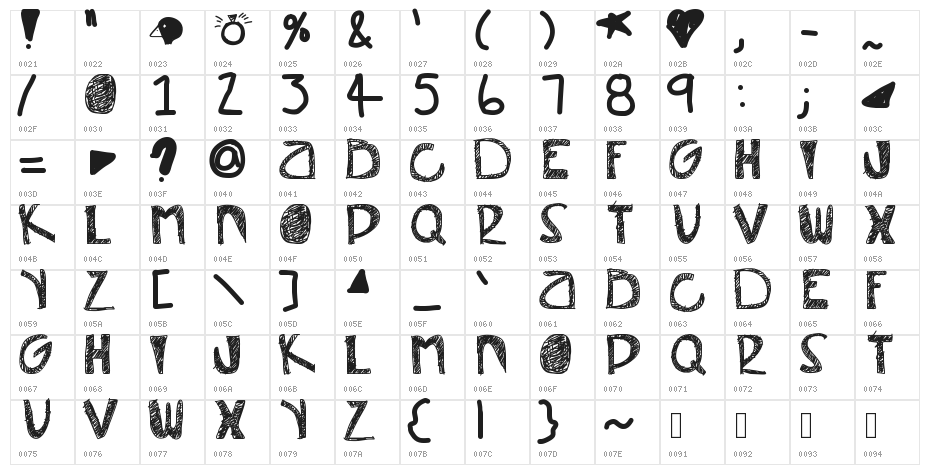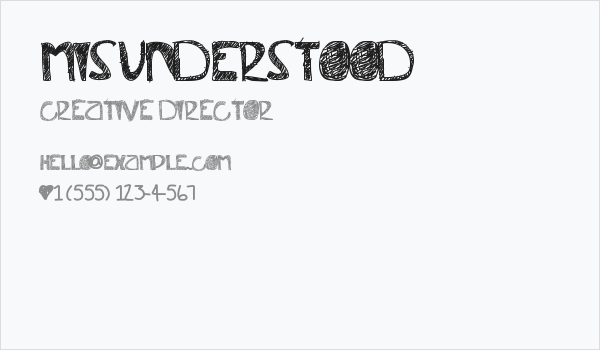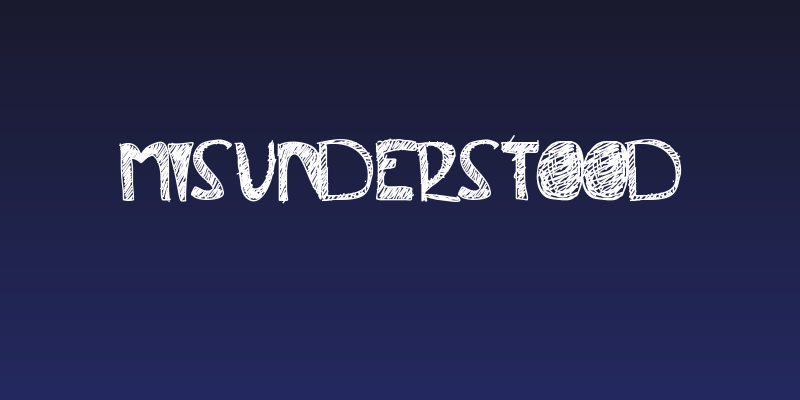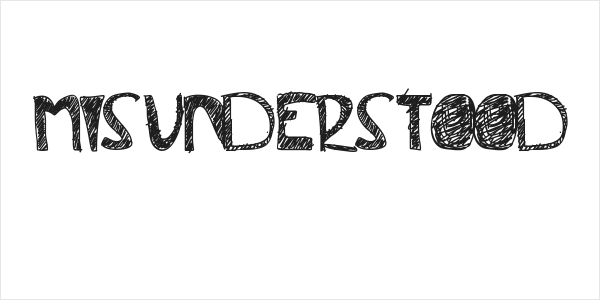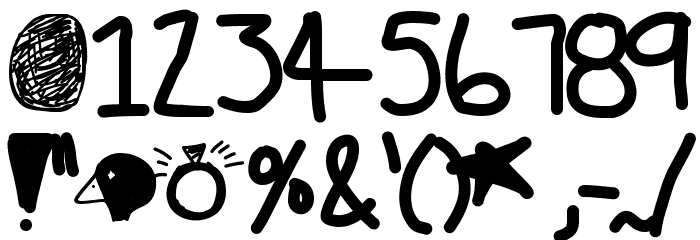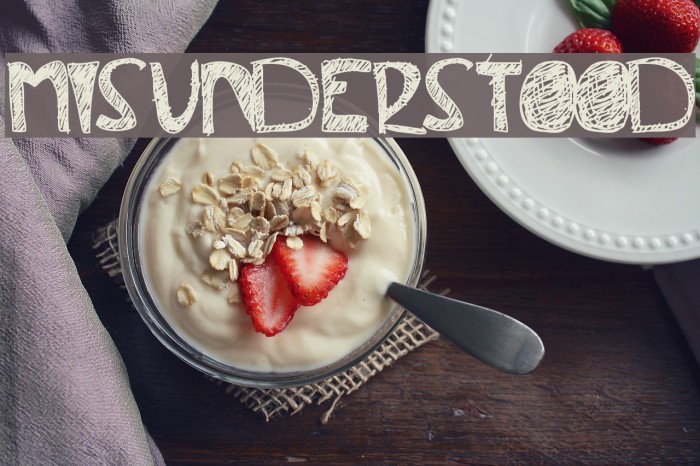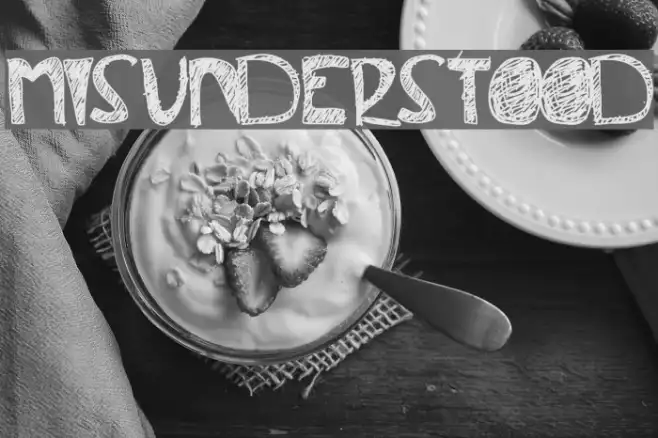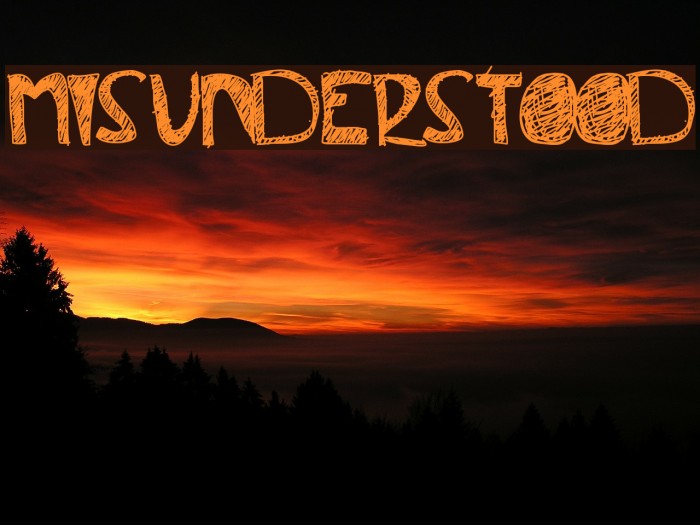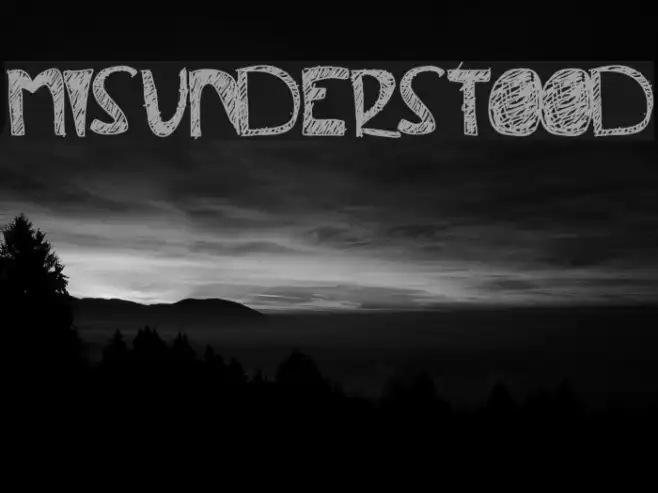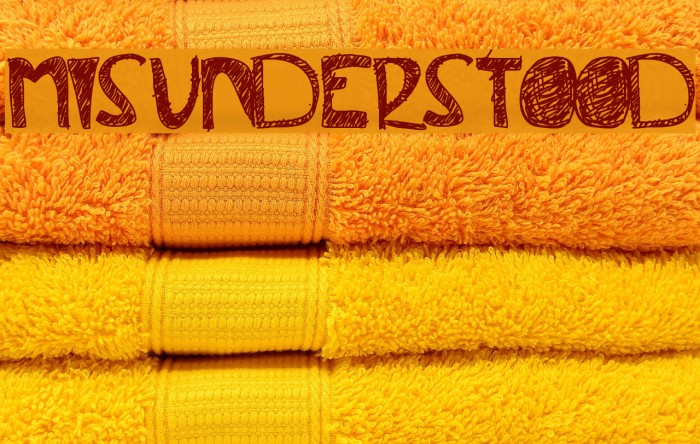
Misunderstood Font
Misunderstood Description
This font features a playful and energetic style, characterized by its hand-drawn, sketch-like appearance. The letters are bold and irregular, with a textured fill that resembles scribbles or doodles. Each character has a unique, slightly chaotic form, giving the font a lively and informal feel. The uppercase and lowercase letters maintain a consistent style, with rounded edges and varying line thicknesses that add to the dynamic look. Numbers and special characters follow the same aesthetic, ensuring a cohesive design throughout. This font is perfect for projects that require a fun, creative touch.
| Overall Style | Playful, Creative |
| Use Case | Headlines, Posters, Creative projects |
| Proposed Projects | Ideal for children's books, comic strips, playful branding, and creative posters. |